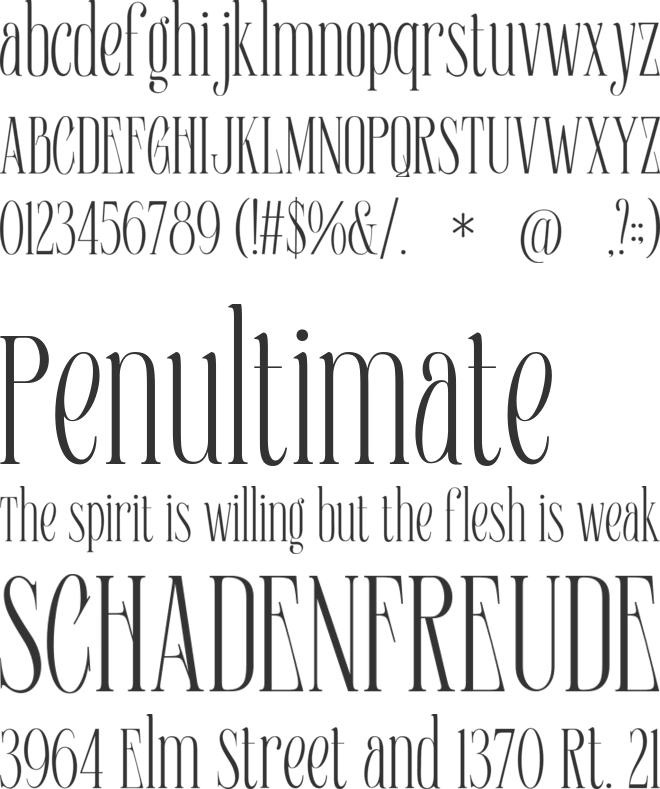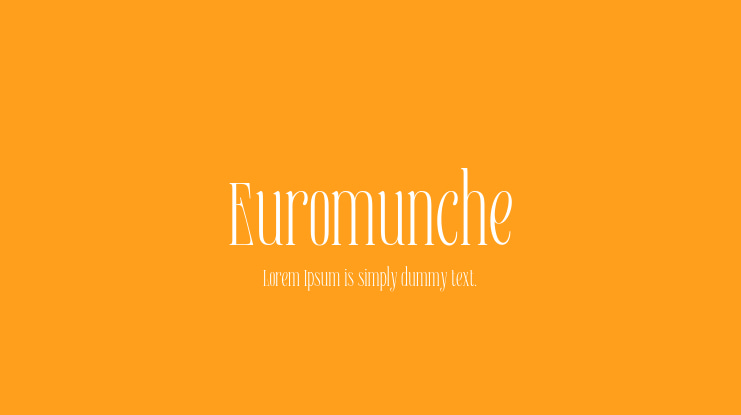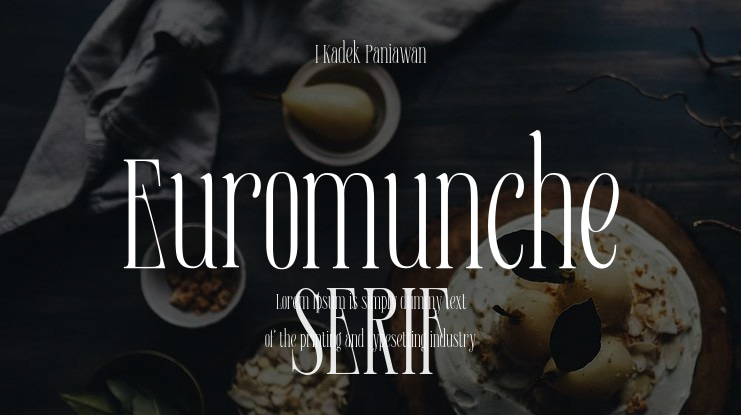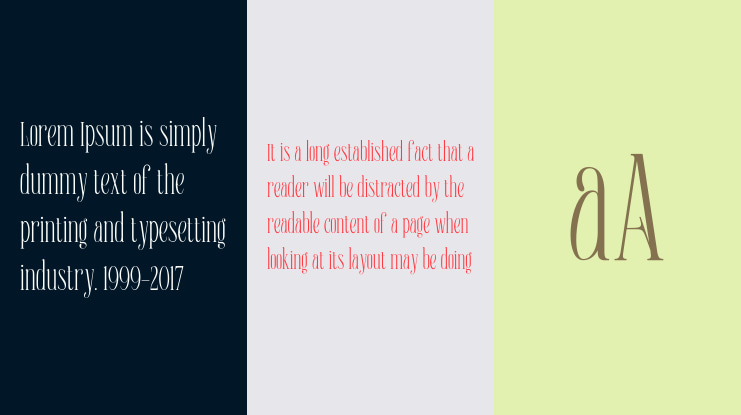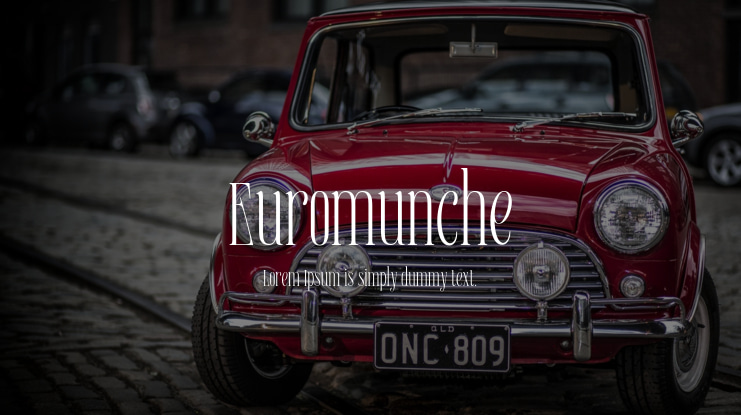
Euromunche Font
I Kadek Paniawan
Euromunche Typeface is a tall serif font that embodies both modern aesthetics and a touch of whimsical charm. Its distinct swaying characters add a unique dynamism to the text, making it perfect for contemporary design projects that seek to stand out with a sophisticated yet playful touch.